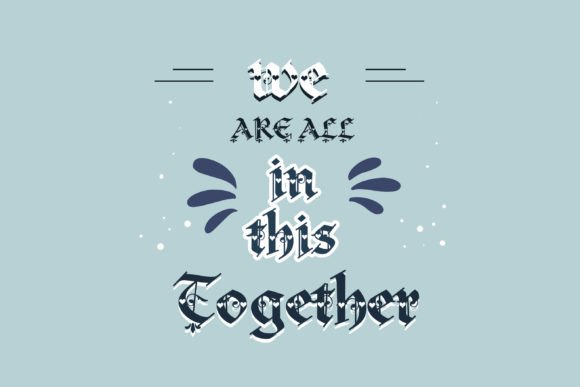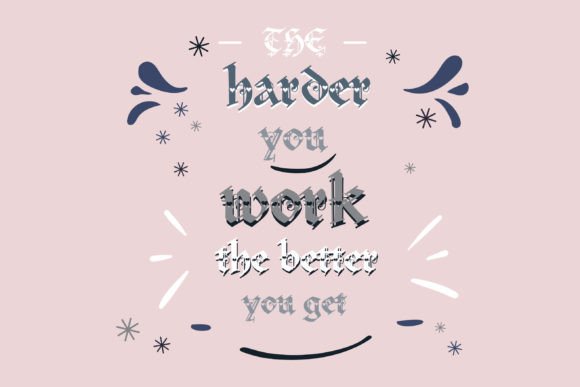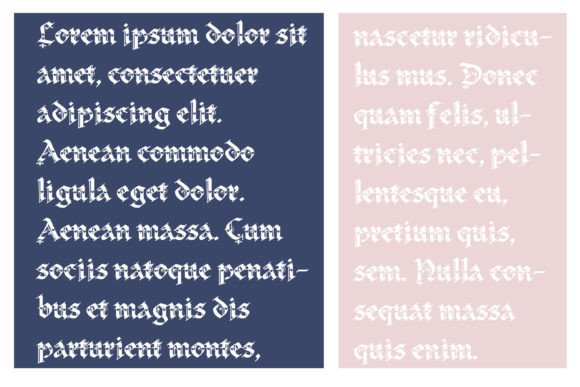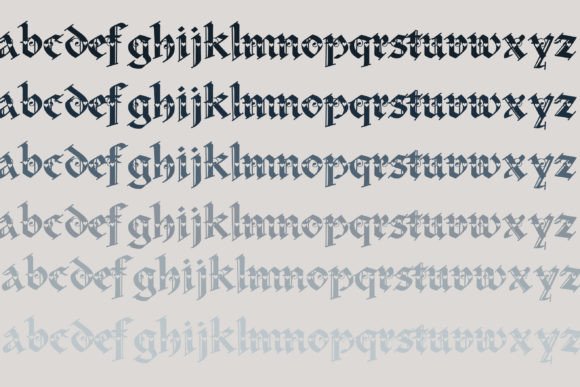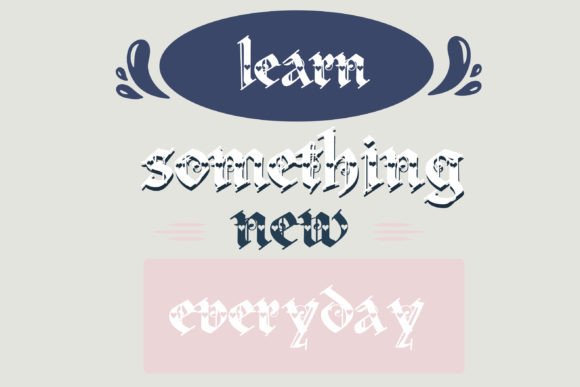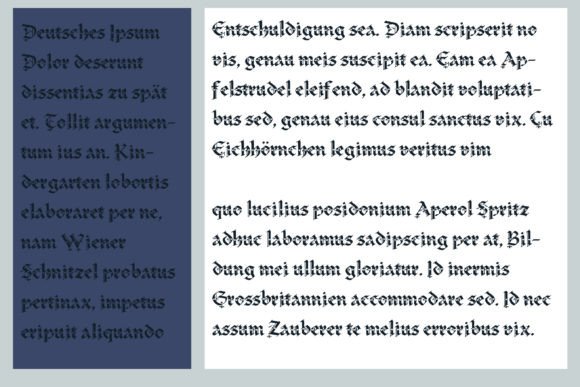
Introduction to Santa Amore Font
Have you ever been working on a creative project, pouring your heart and soul into every detail, only to feel like something’s missing? That’s where the right design resource can make all the difference. For me, that moment came when I stumbled upon the enchanting Santa Amore Font. This beautiful, high-quality font is a treasure trove of elegance and charm, perfect for adding a touch of whimsy to any design.
With its intricate flourishes and delicate hearts, the Santa Amore Font is an instant mood-booster, guaranteed to elevate any creative project. Whether you’re working on a romantic wedding invitation or a playful children’s book, this font is sure to bring a smile to your face. And the best part? You can download it for free, with a transparent background that makes it easy to use in any design setting.
Key Features of Santa Amore Font
- Features a transparent background, allowing for seamless integration with any design or project.
- Designed to be versatile and suitable for a wide range of applications, from digital to print media.
- Includes multiple font styles and weights, providing users with a comprehensive set of design options.
- Offers a high-resolution design, perfect for use in high-quality prints, presentations, and digital displays.
- Can be easily scaled and customized to fit the specific needs of any creative project.
Honest Review: Santa Amore Font
I recently had the chance to work with the Santa Amore Font, and I’m excited to share my honest review. This free download has been a game-changer for my creative project, adding a touch of elegance and sophistication to my designs.
- The Santa Amore Font has a beautiful, high-quality design that’s perfect for any project.
- The font comes with a transparent background, making it easy to work with and customize.
- The font is highly versatile, suitable for a wide range of creative projects, from wedding invitations to business cards.
- The font is a free download, which means it may not be as comprehensive as some paid design resources.
- The font may not be suitable for complex, multi-color designs, as it’s primarily designed for simple, elegant text.
Overall, I’m extremely impressed with the Santa Amore Font. Its high-quality design, versatility, and ease of use make it a fantastic addition to any design resource. While it may have some limitations, I believe it’s well worth the free download. If you’re looking for a beautiful, elegant font for your creative project, I highly recommend giving the Santa Amore Font a try.
To get the most out of the Santa Amore Font, use it in combination with other design elements such as images and graphics. Experiment with different font sizes, colors, and styles to create a unique and eye-catching design.
The Santa Amore Font is perfect for use in various creative projects such as brochures, flyers, posters, and business cards. It’s also ideal for use in social media graphics, web design, and digital marketing materials.